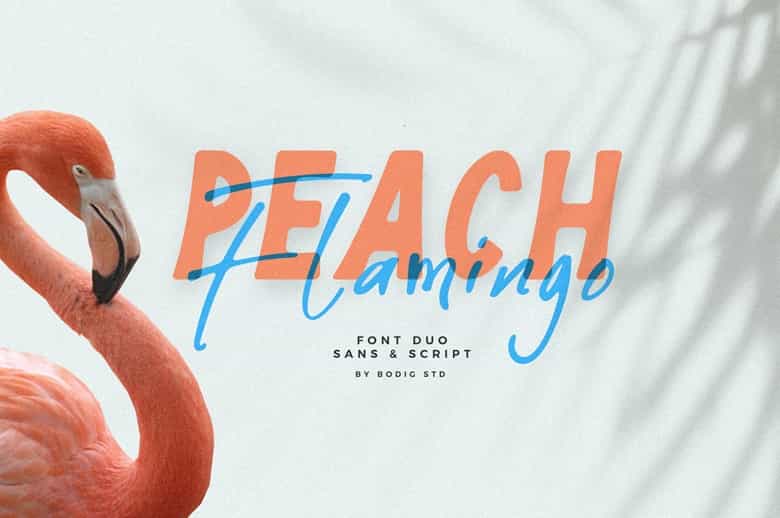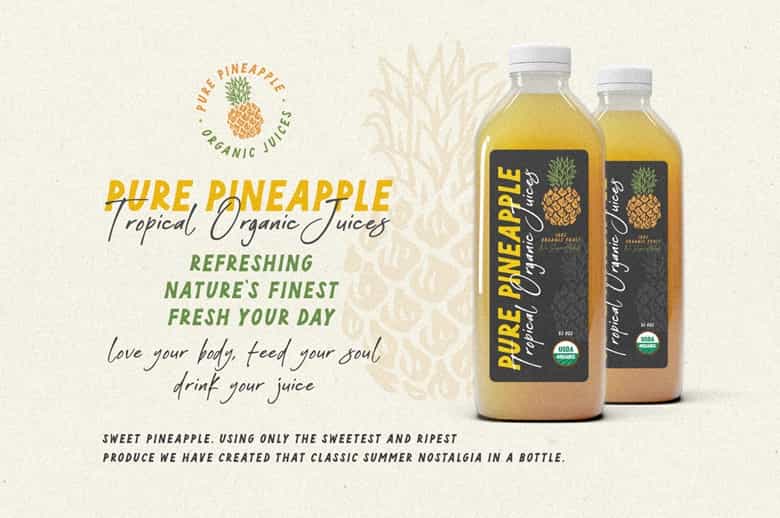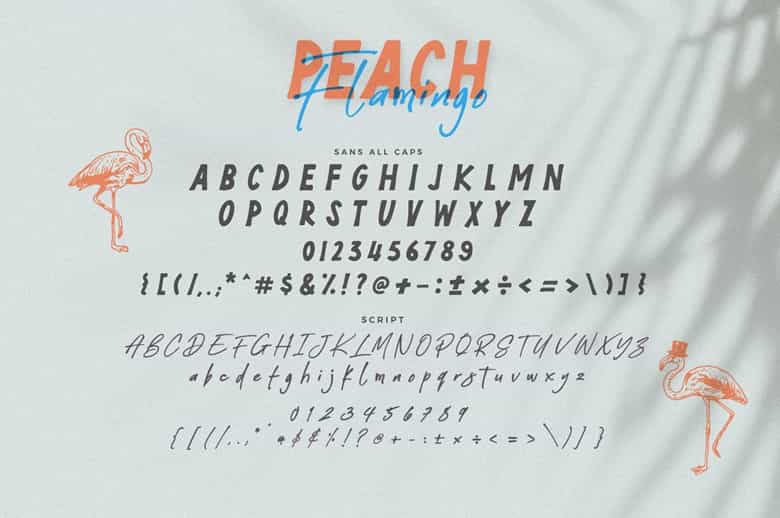
Peach Flamingo is modern two handwritten all caps and script typeface, one is a raw power struggle between these two fonts, this sans font comes with a swanky dingbat – while the other is organic wild handwritten. There are more vector bonuses to help spice up your designs!